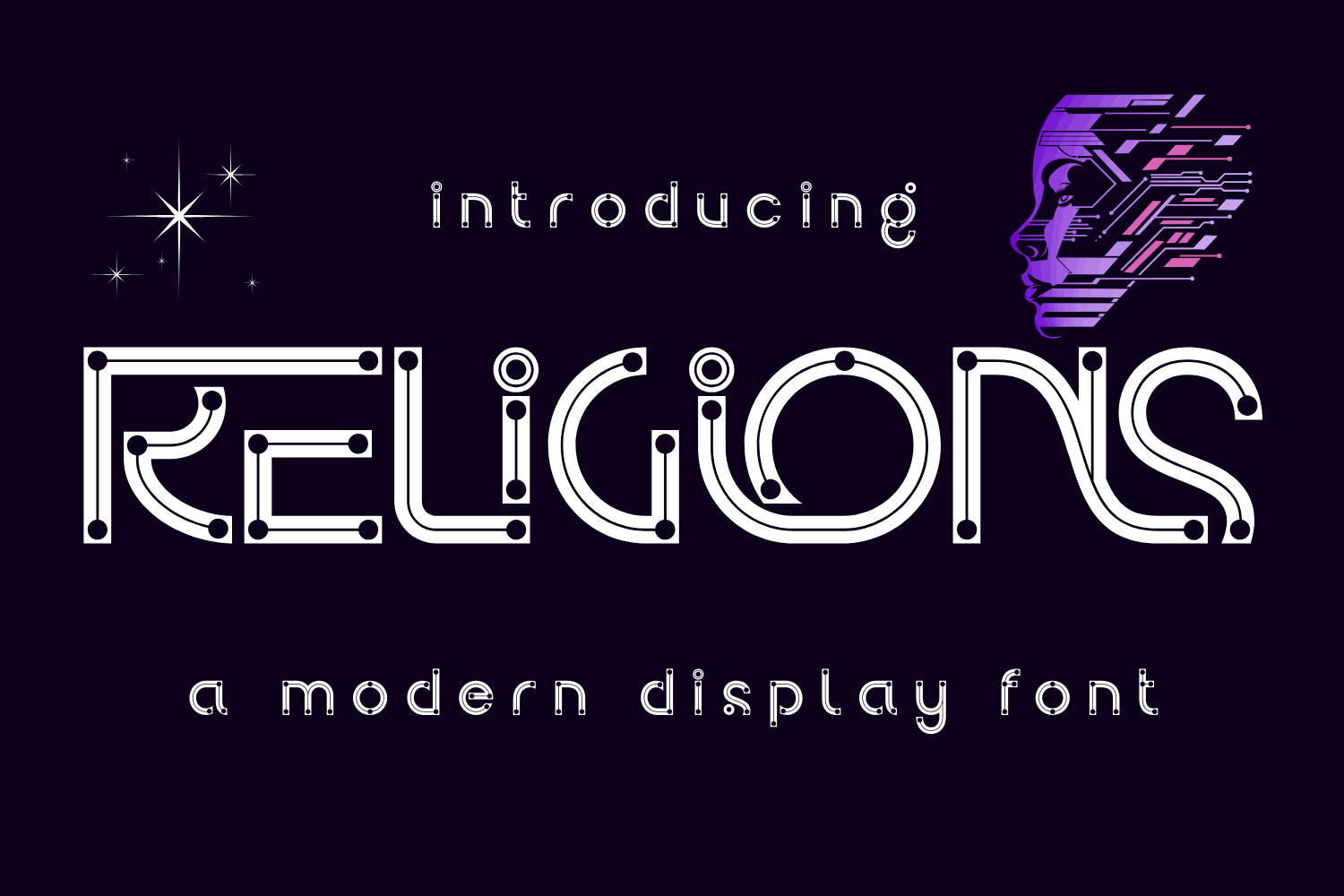
RELIGIONS | Futuristic Tech Font
RELIGIONS FONT – A Futuristic Tech Display Font. Step into the future with this font, a bold and cutting-edge Futuristic Tech Display Font designed for high-tech and sci-fi aesthetics. With its circuit-inspired letterforms and sleek geometric structure, this font is the perfect choice for technology branding, gaming, digital interfaces, posters, and futuristic designs.
✔ Uppercase & Lowercase Letters
✔ Approximately 100 Special Ligatures for seamless typography
✔ Numerals & Punctuation for versatile applications
✔ Accented Characters to support multiple languages
Whether you're designing for a cyberpunk-themed project, a tech startup, or a sci-fi movie title, RELIGIONS will elevate your typography with its unique digital touch. Bring the future to your designs with RELIGIONS today!
About 100 ligatures combined with Stylistic Alternates Font:
AC AD AL AN AR AS AT AU AV BE CA CE CH CO CT DE DI EA EC ED EE EL EM EN EP ER ES ET FE FO FR GE HA HE HI HO IE IC IL IN IO IR IS IT JU KE LA LE LI LL LO LY MA ME MI NC ND NE NG NO NT NS OC OF OM ON OO OP OR OT OU OW PA PR RA RD RE RI RO RS RT SE SH SI SO SS ST TA TE TH TI TO TR TT UM UN UR VE WI WO